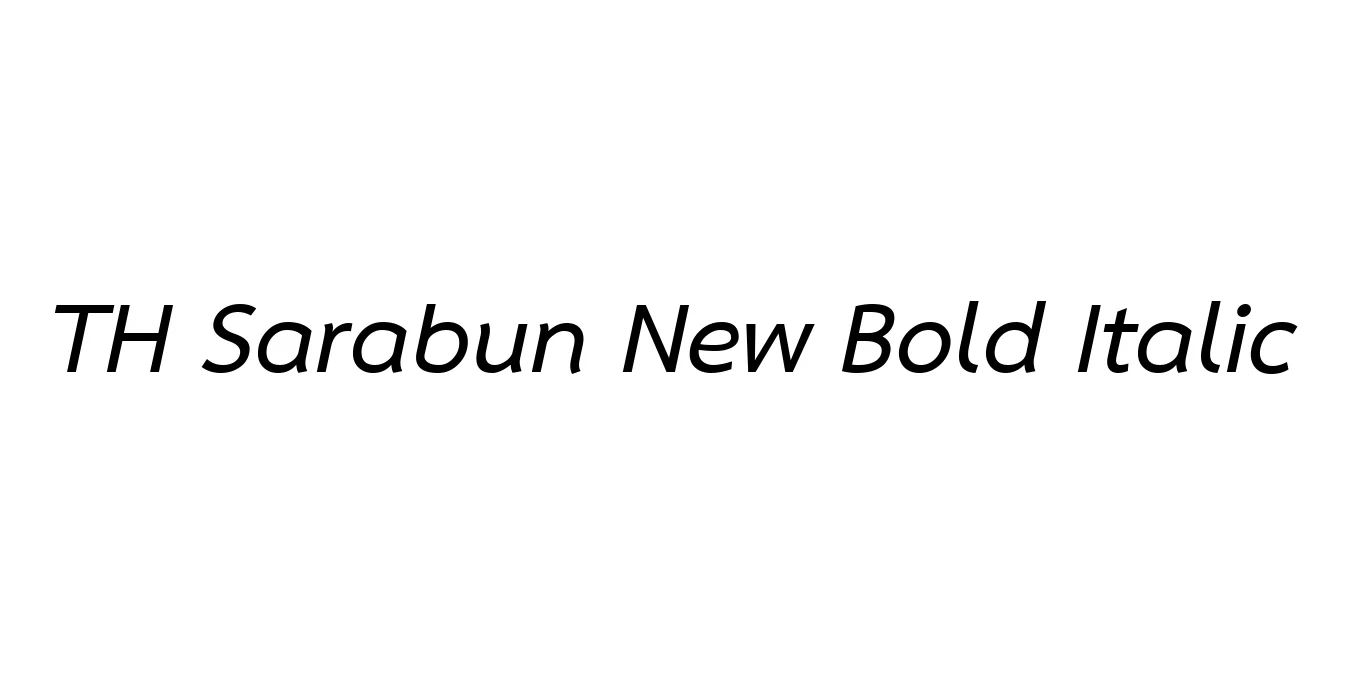
TH Sarabun New Bold Italic
Designed by Suppakit Chalermlarp
| Category | Sans Serif / Thai Script |
| Designer | Suppakit Chalermlarp |
TH Sarabun New Bold Italic is an essential update to the original TH Sarabun PSK, commissioned by the Software Industry Promotion Agency (SIPA) and the Department of Intellectual Property of Thailand. Designed by Suppakit Chalermlarp, this version was developed to address rendering issues and improve legibility on modern digital screens and various operating systems, making it the definitive choice for official Thai communication.
The Bold Italic style provides a professional and dynamic aesthetic that is widely utilized in government administration, legal documentation, and academic settings. As part of the national font project, it ensures uniformity and standardization across all Thai official sectors, offering a clean sans-serif look that balances traditional Thai script with contemporary typographic standards.
TH Sarabun New Bold Italic Best Uses
Standardized font for Thai government reports and administrative paperwork.
Perfect for thesis work, research papers, and scholarly articles requiring a formal tone.
Ideal for professional letters, business proposals, and legal contracts.
Optimized for high-quality rendering on websites and digital PDF documents.